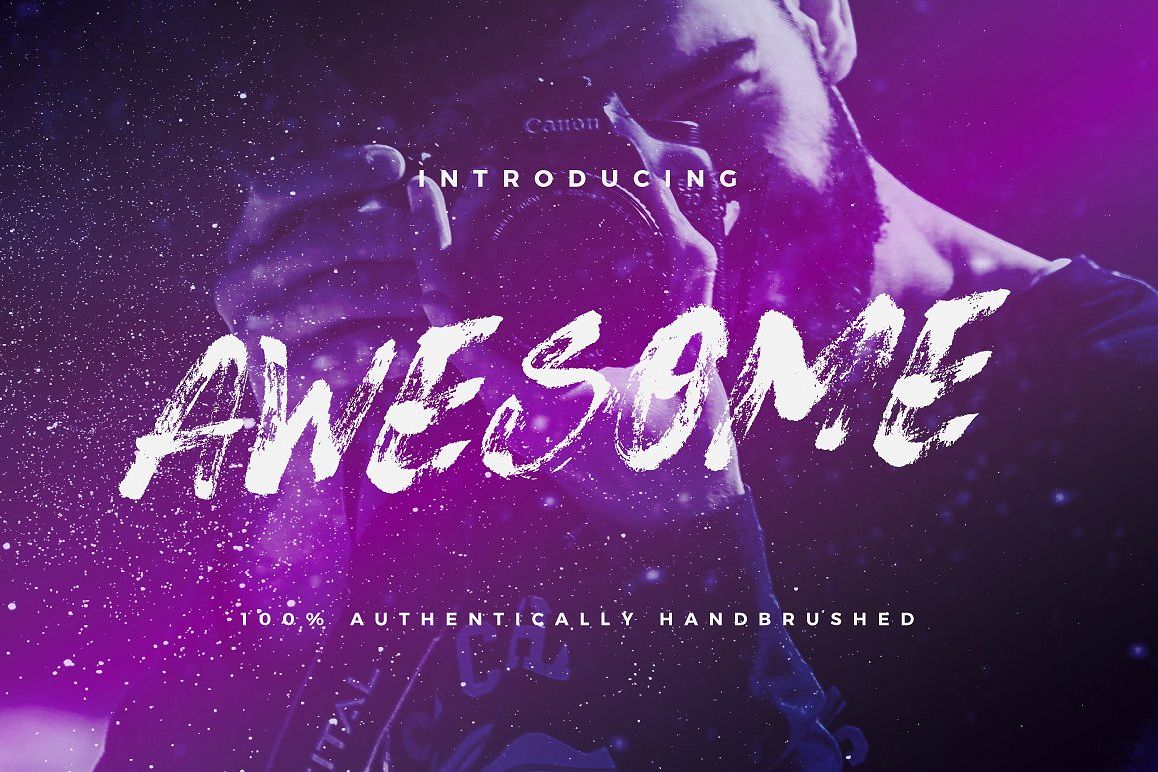
Awesome Typeface
Awesome-Regular
A 100% handlettered dry ink font Awesome is here! It's an super-modern typeface with a perfect texture from a real brush pen, alternate characters and slightly oblique touch. With its alternate characters you'll instantly get the authentic handmade look to it. I took a careful approach to make it as easy to use as possible and added the alternates as a-z characters so you don't have to install any alternate fonts or use the glyphs panel. Be a perfect professional in a minute and start creating modern designs like ads, sales, logos, branding, posters, social media text overlays today!
Awesome with Alternates